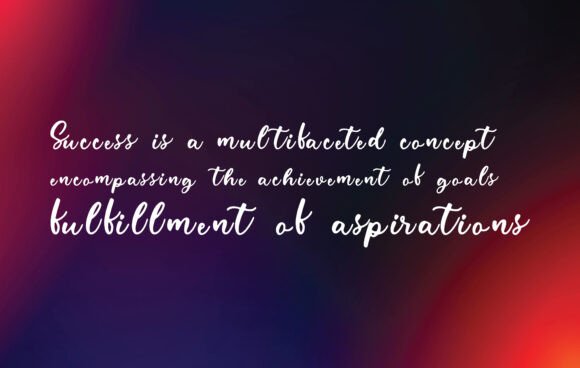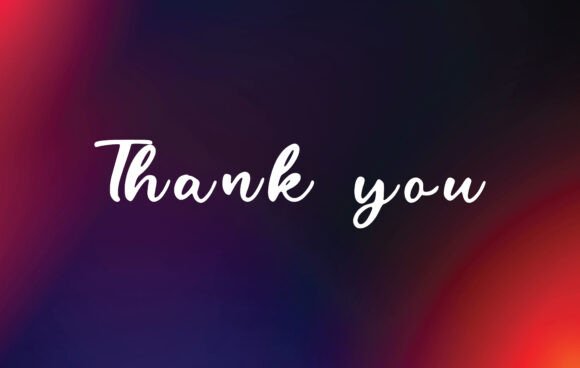
Introducing Alessandro Font: Elevate Your Designs with Elegance and Sophistication
Are you on the hunt for a font that can take your creative projects to new heights? Look no further than Alessandro Font, a stunning handwritten font that is sure to captivate your audience. With its elegant and sophisticated design, Alessandro is the perfect choice for designers and crafters looking to add a touch of luxury to their work.
The Beauty of Alessandro Font
Alessandro Font is a lovely and beautiful handwritten font that boasts a unique and charming aesthetic. Its flowing lines and delicate curves make it a joy to use in a variety of design applications, from logos and branding to quotes and social media graphics. Whether you’re creating a sophisticated business card or a whimsical wedding invitation, Alessandro Font is sure to impress.
Unleash Your Creativity with Alessandro Font
Alessandro Font has the potential to take your creative ideas to the highest level. Its versatility and elegance make it an excellent choice for a wide range of design projects, including:
- Logos and branding: Create a lasting impression with a custom logo that exudes sophistication and style.
- Quotes and typography: Add a touch of elegance to your quotes and typography with Alessandro Font’s beautiful handwritten script.
- Social media graphics: Elevate your social media presence with eye-catching graphics that showcase your brand’s personality.
- Wedding and event invitations: Make your special day even more memorable with custom invitations that feature Alessandro Font’s charming design.
Why Choose Alessandro Font?
So why choose Alessandro Font over other fonts on the market? Here are just a few reasons why designers and crafters love this beautiful handwritten font:
- Unique and elegant design: Alessandro Font boasts a distinctive and sophisticated design that sets it apart from other fonts.
- Versatile: This font can be used in a variety of design applications, from logos and branding to quotes and social media graphics.
- Easy to read: Despite its elegant design, Alessandro Font is easy to read and understand, making it perfect for use in body text and captions.
- High-quality: Alessandro Font is a high-quality font that is designed to deliver exceptional results in your designs.
Tips for Using Alessandro Font
To get the most out of Alessandro Font, here are a few tips to keep in mind:
- Use it sparingly: While Alessandro Font is beautiful, it can be overwhelming if used excessively. Use it sparingly to create a lasting impression.
- Pair it with complementary fonts: Pair Alessandro Font with complementary fonts to create a visually appealing design.
- Experiment with colors: Don’t be afraid to experiment with different colors and textures to add depth and interest to your design.